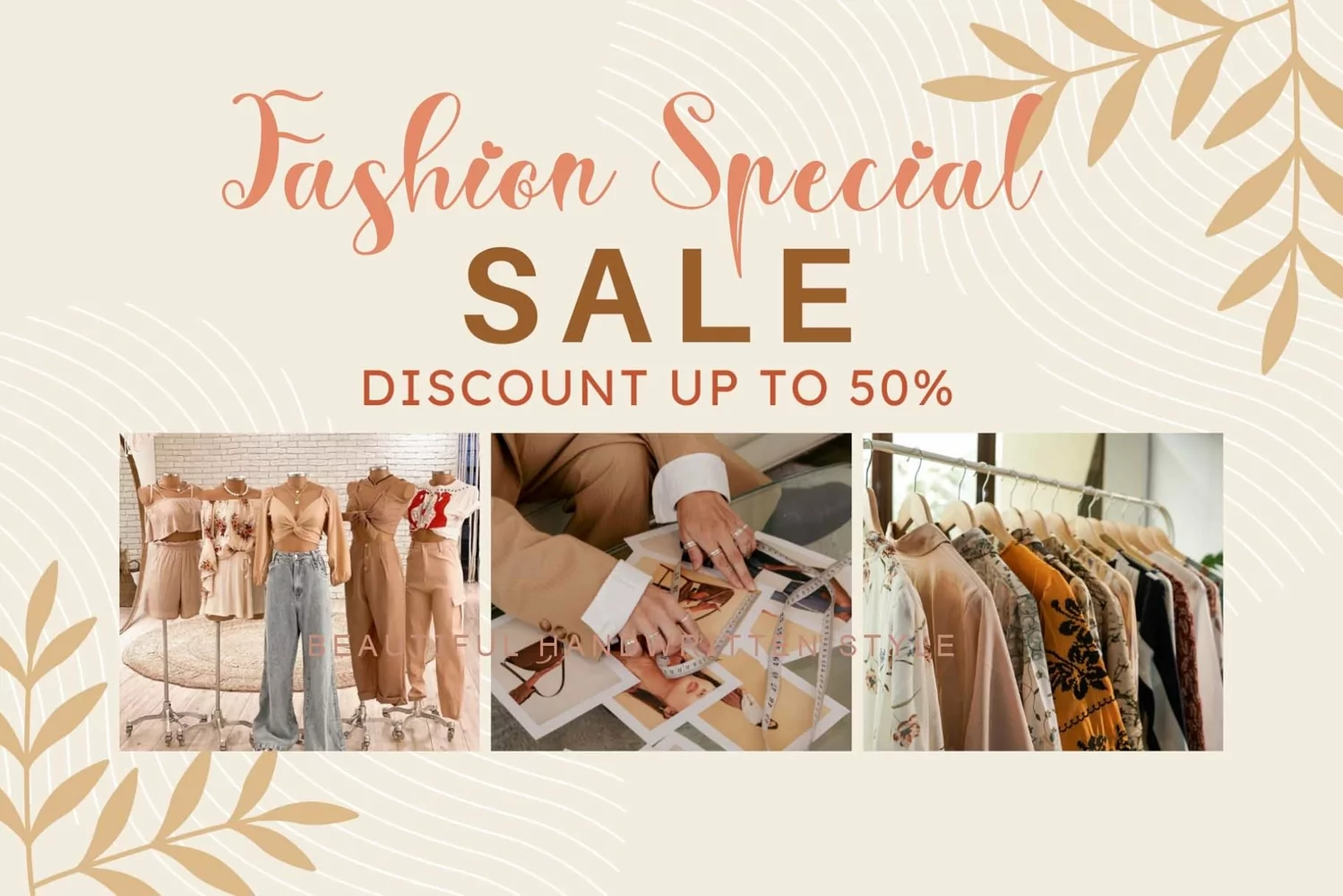
"Atheline" is a beautiful and elegant handwritten font. This font is equipped with uppercase, lowercase, numerals, punctuation, and multilingual support. It is suitable for weddings, engagements, photography, stickers, banners, branding, Christmas, back to school, and others.